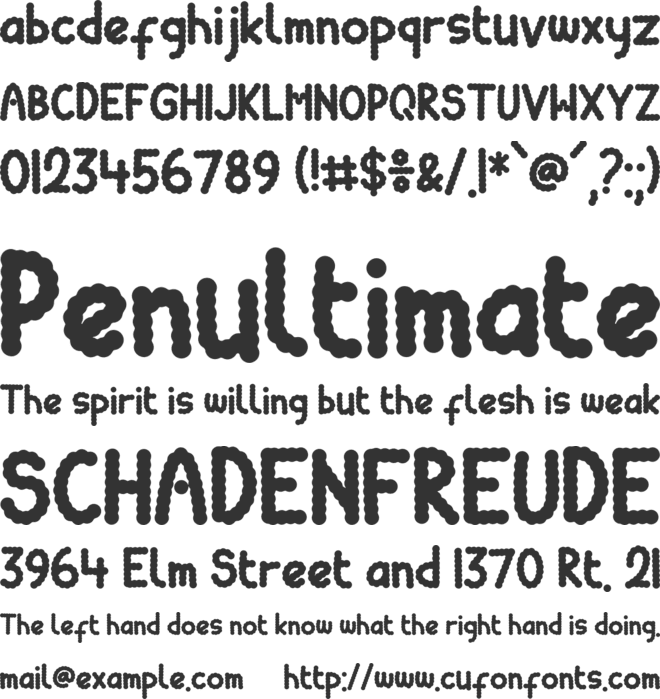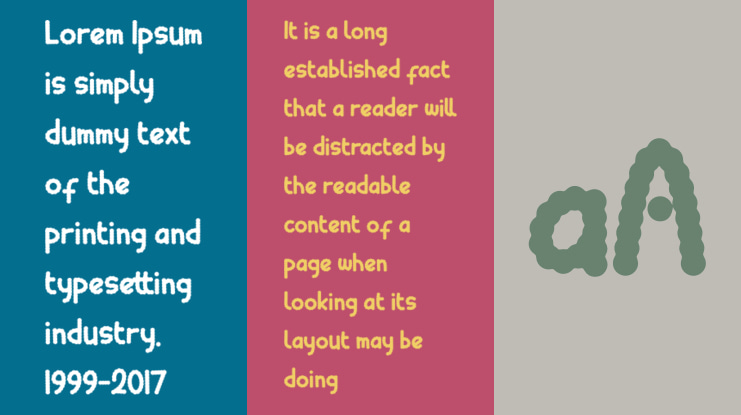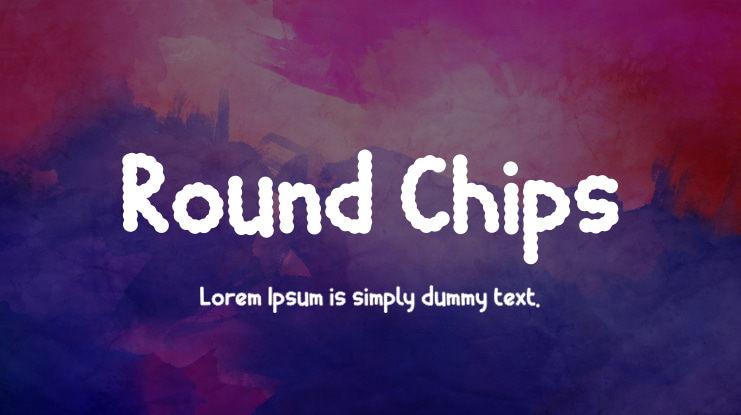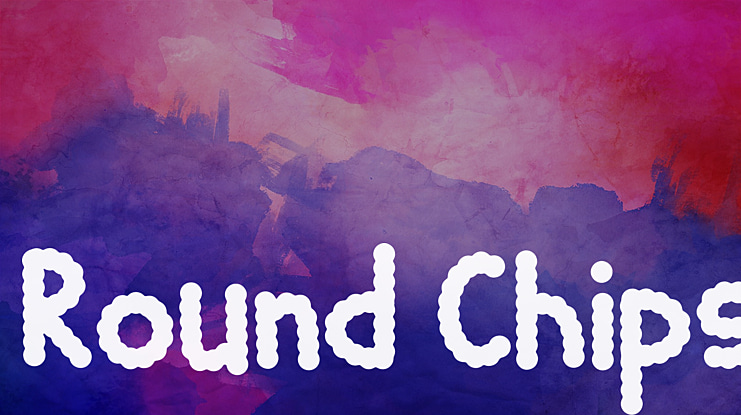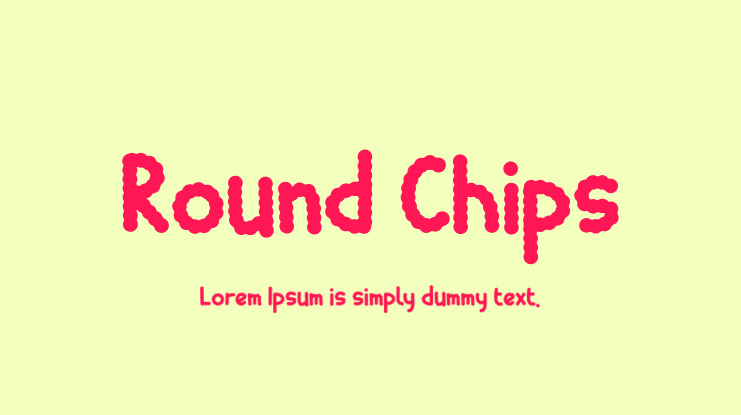
Round Chips Font
Round Chips - Quirky Font, from Integritype Studio, is a premium Quirky font, suitable for any projects such as: logos, branding projects, homeware designs, product packaging, mugs, quotes, posters, shopping bags, t-shirts, book covers, name card, invitation cards, greeting cards, label, photography, watermark, special events, and all your other luxury projects that need a premium signature taste.
Ligature, Alternate & Swashes